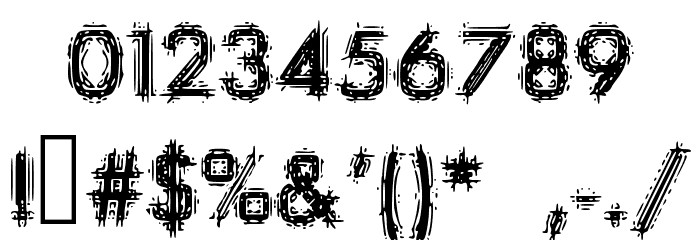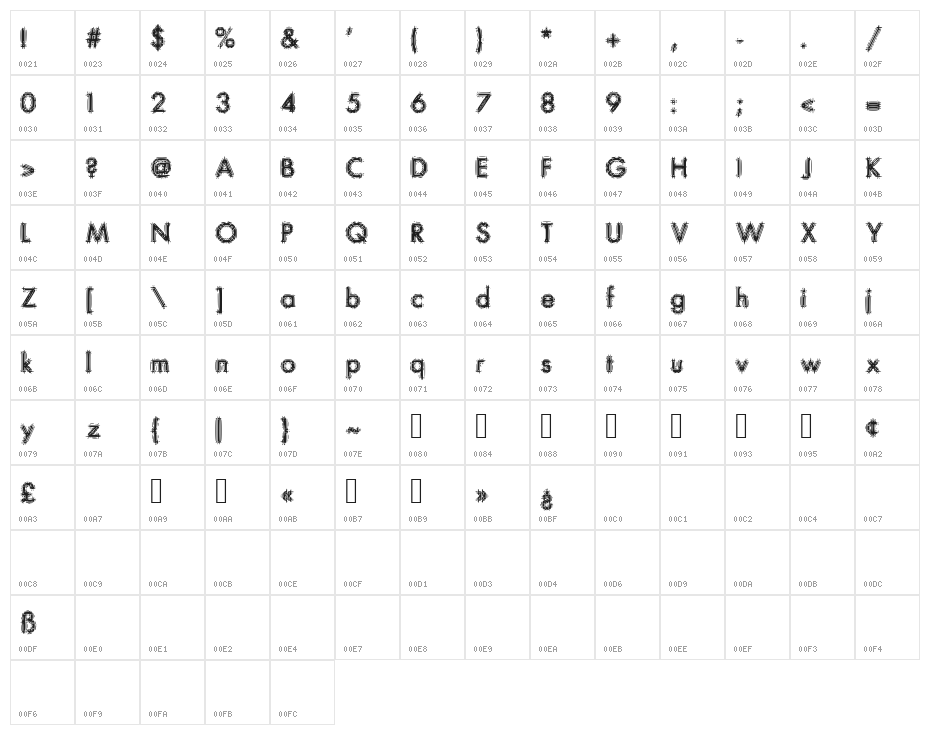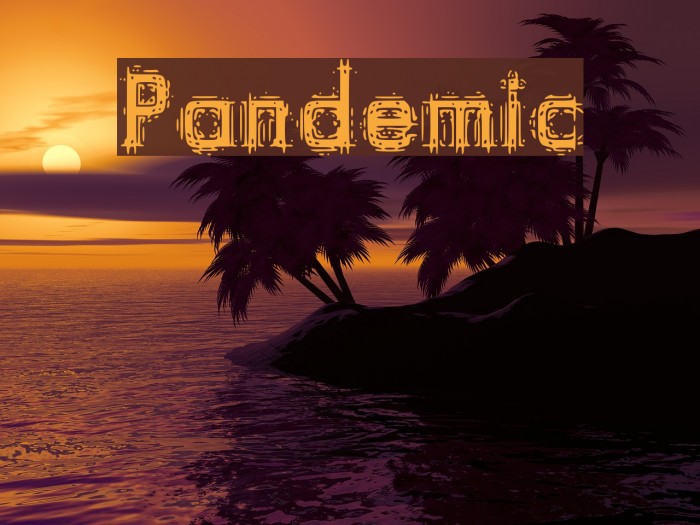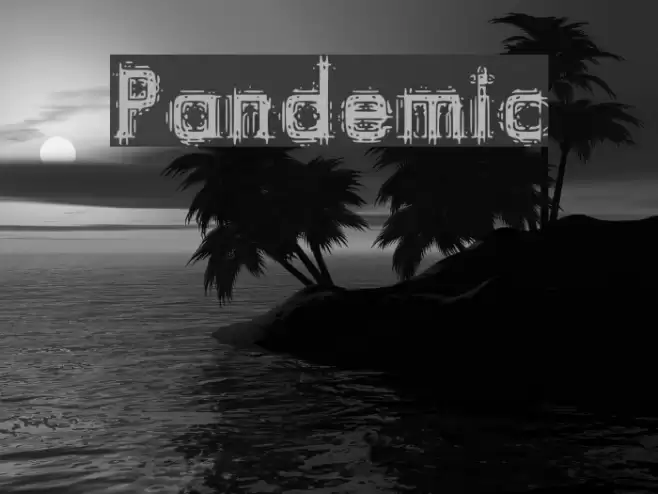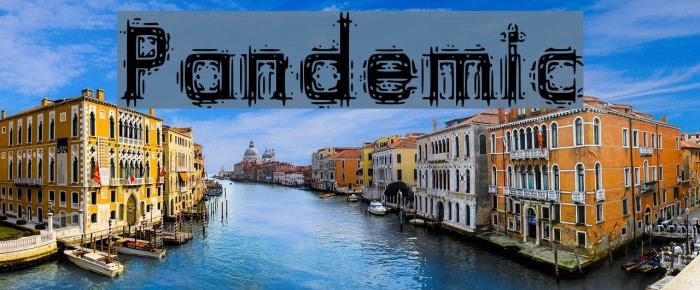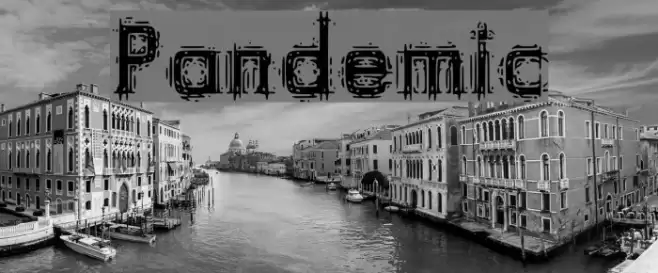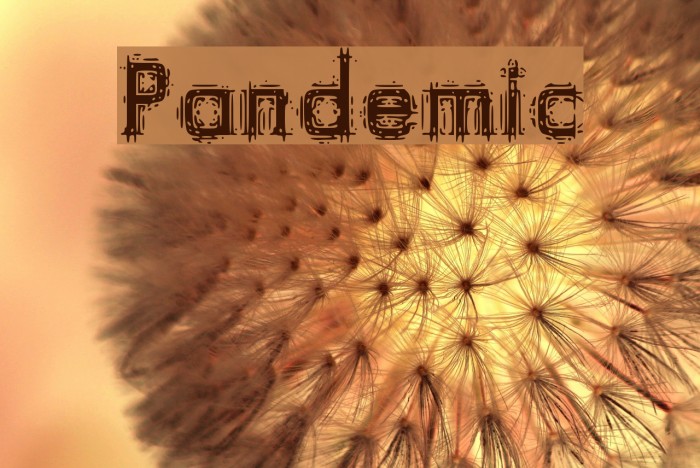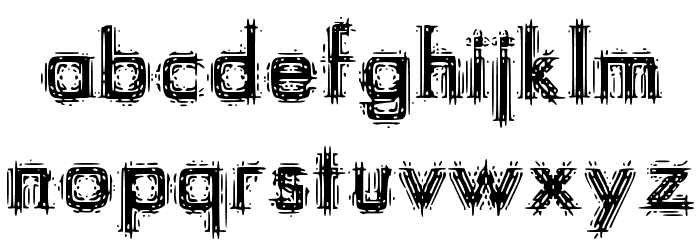
Pandemic Font
Pandemic Description
This font features a distressed, grunge style with a chaotic and textured appearance. The characters are outlined with irregular, jagged edges, giving them a rough and edgy look. The design incorporates a sense of disorder and movement, making it visually striking and attention-grabbing. Each letter and number appears to be constructed from a series of overlapping lines and scratches, creating a sense of depth and complexity. The font's unique style makes it suitable for projects that require a bold and unconventional aesthetic.